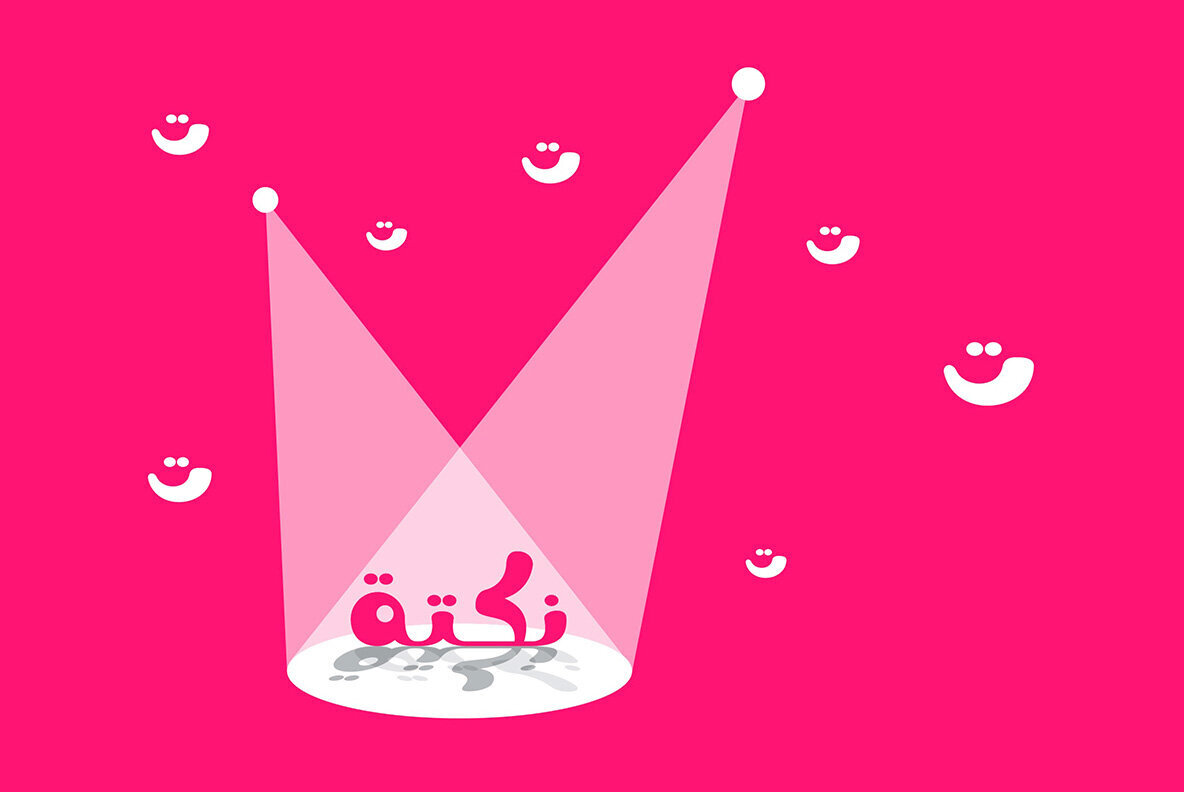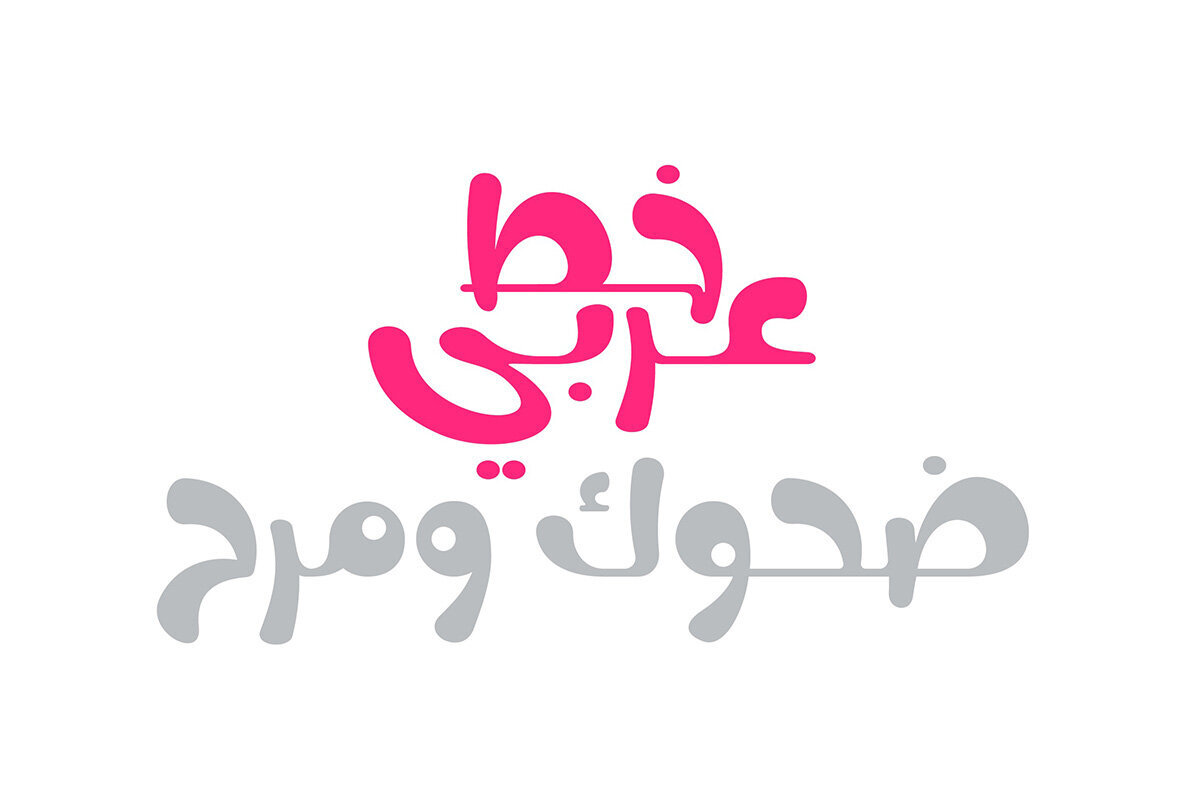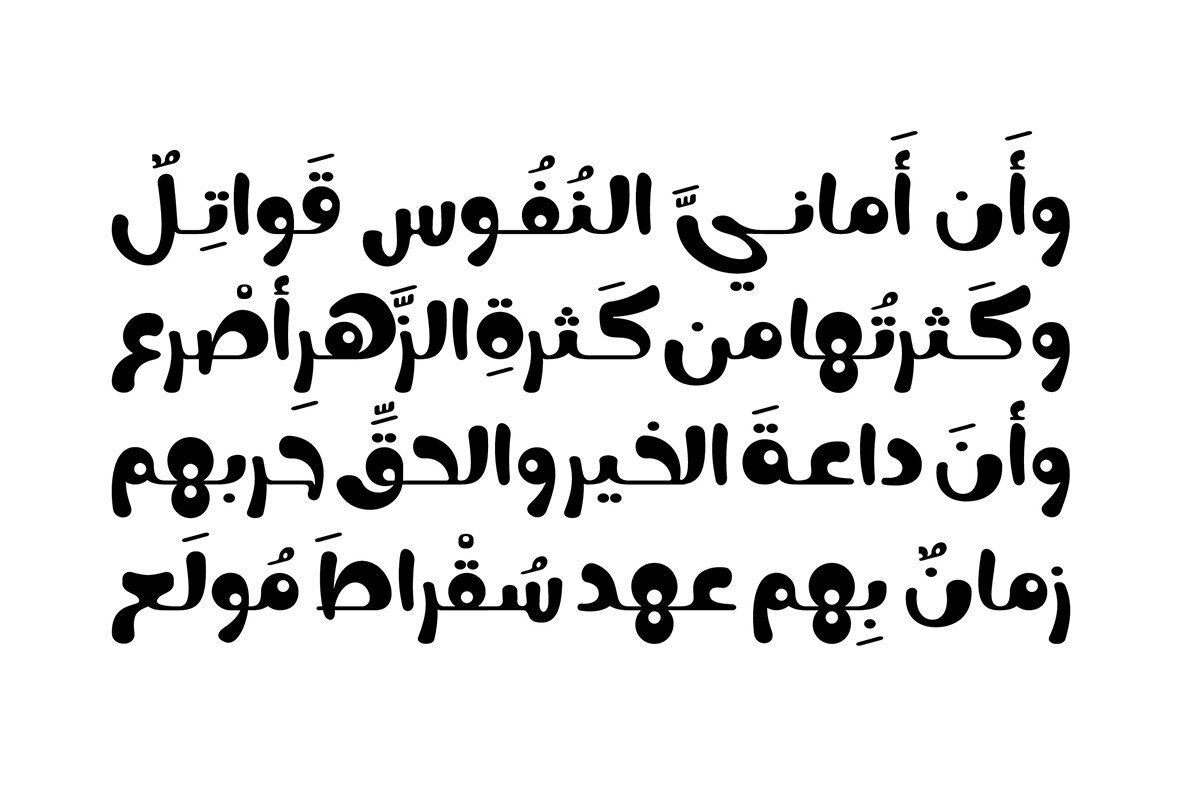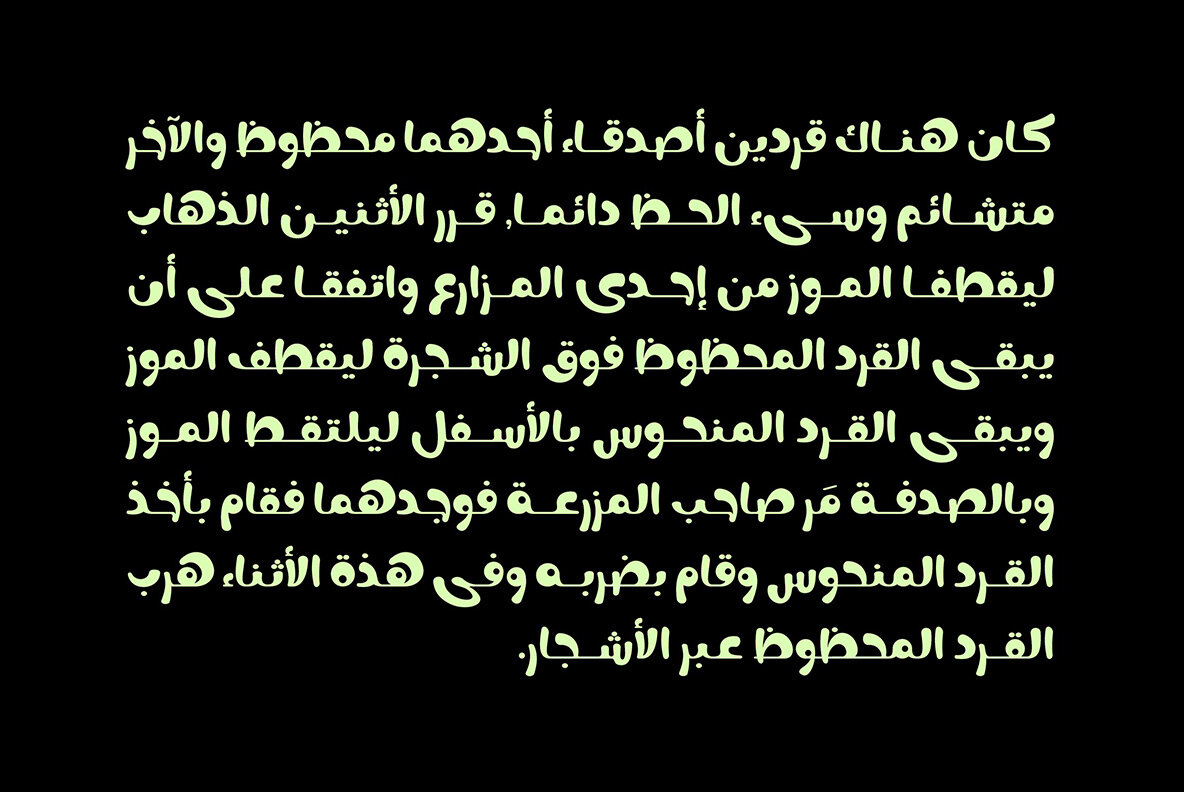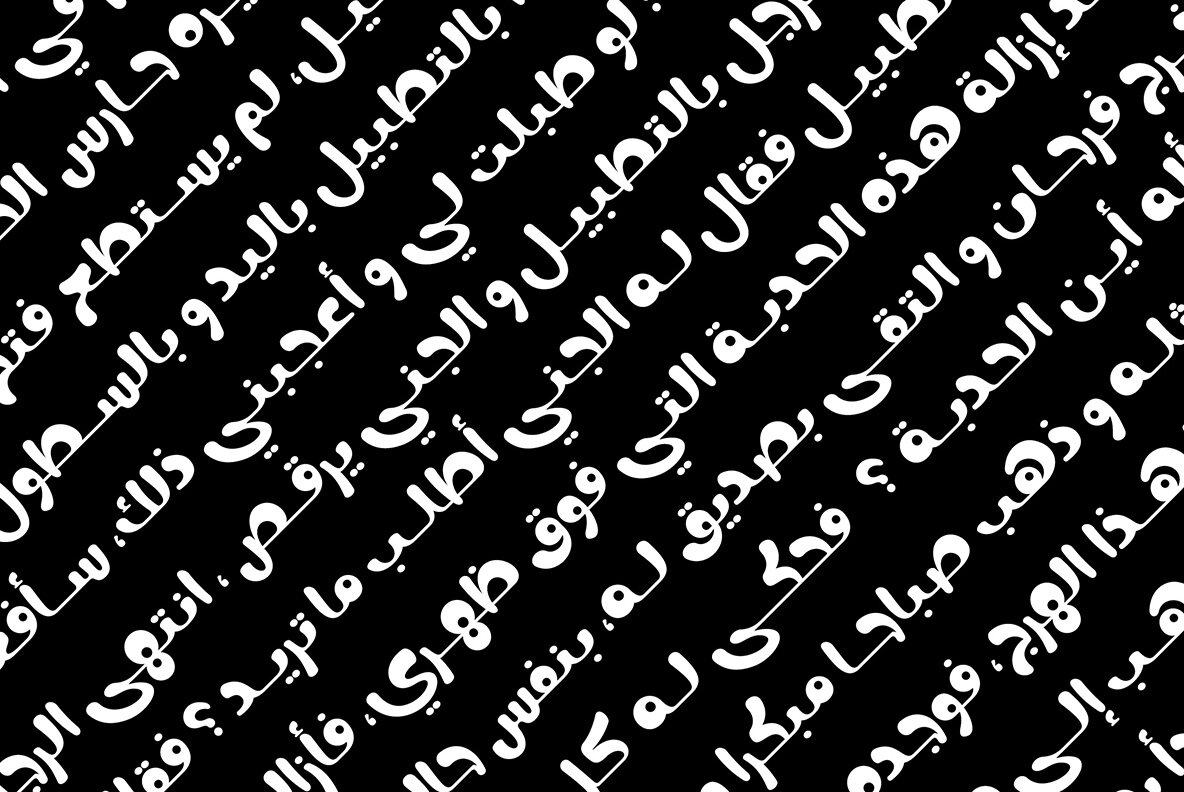
Nokta Font
Nokta Regular
Nokta is an Arabic font that brings a touch of humor to all your creative projects. Its playful design makes it an excellent choice for a variety of applications, including web, print, and mobile platforms. Whether you're crafting a whimsical website or designing an engaging print layout, Nokta offers a versatile solution for adding an entertaining flair.
The font is compatible with both Windows and Mac OS, ensuring seamless integration into your workflow. Nokta is ideal for those looking to inject personality into their designs while maintaining readability and aesthetic appeal. Its unique character and adaptability make it a valuable tool for graphic and digital designers seeking to stand out with originality and humor in their projects.